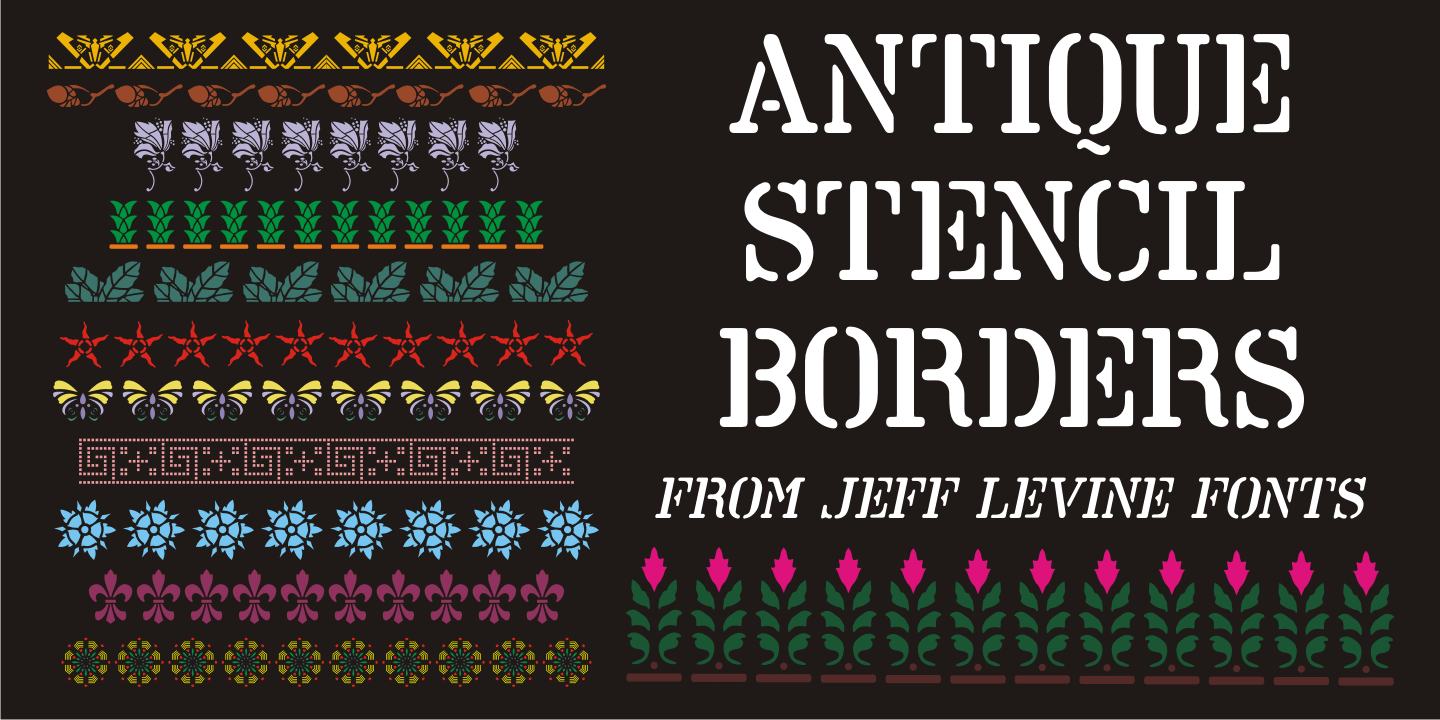
Antique Stencil Borders
Antique Stencil Borders JNL collects twenty-six vintage border designs from various sources for complementing copy set in stencil lettering or in stand-alone decorative projects.
Antique Stencil Borders One JNL Regular by Jeff Levine Fonts